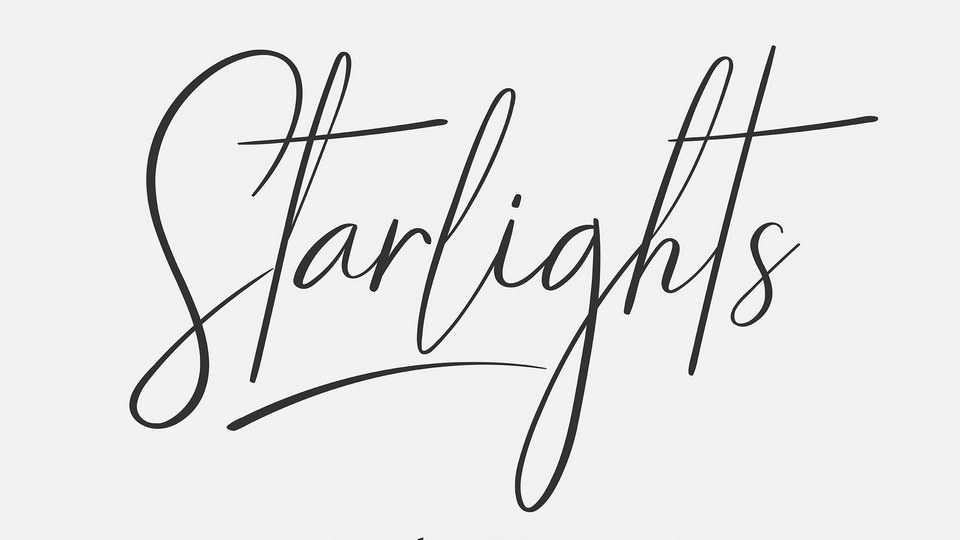
Download Starlights font, a stylish handwritten script. Classic script style of Starlights make this font natural, classy and perfect for any awesome project that need handwriting taste.